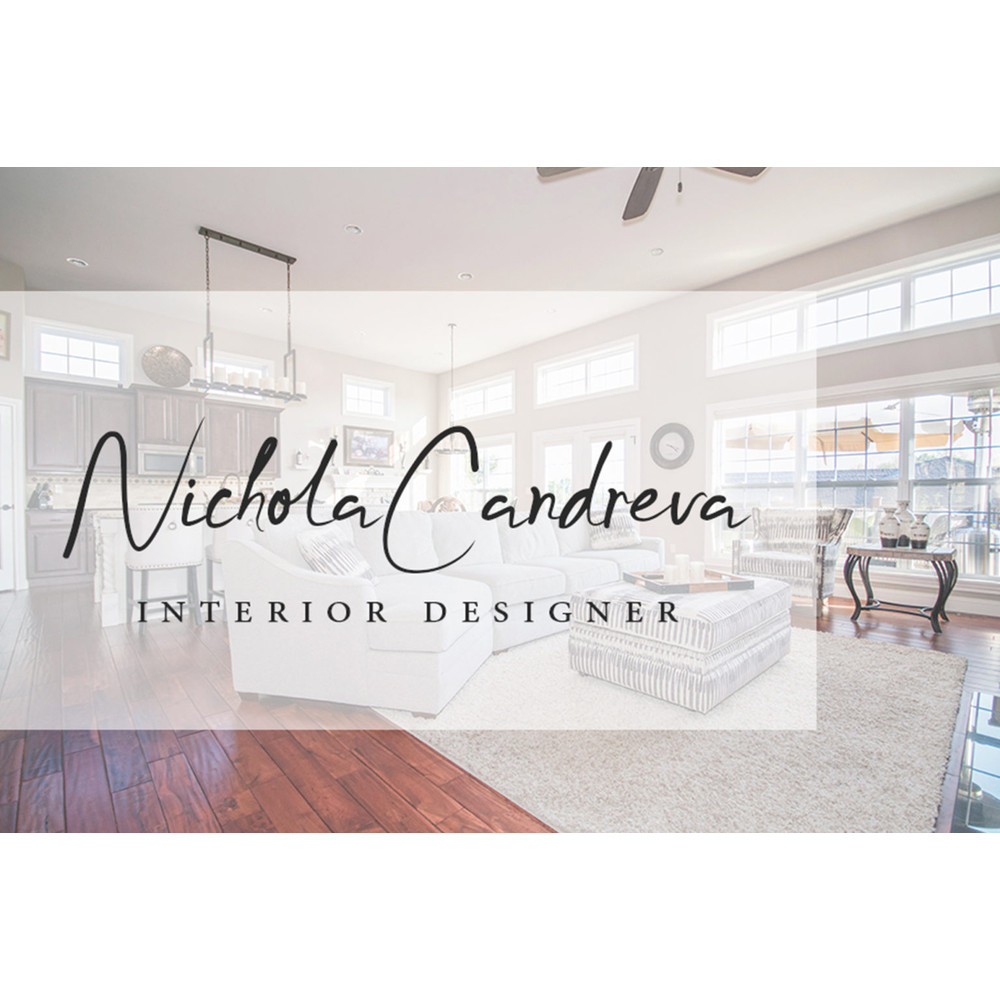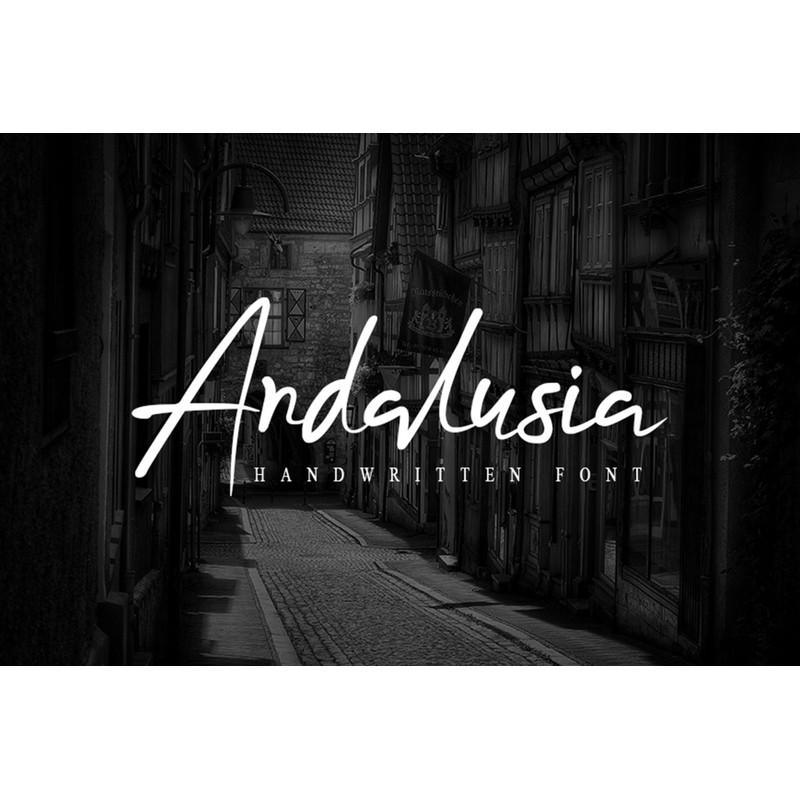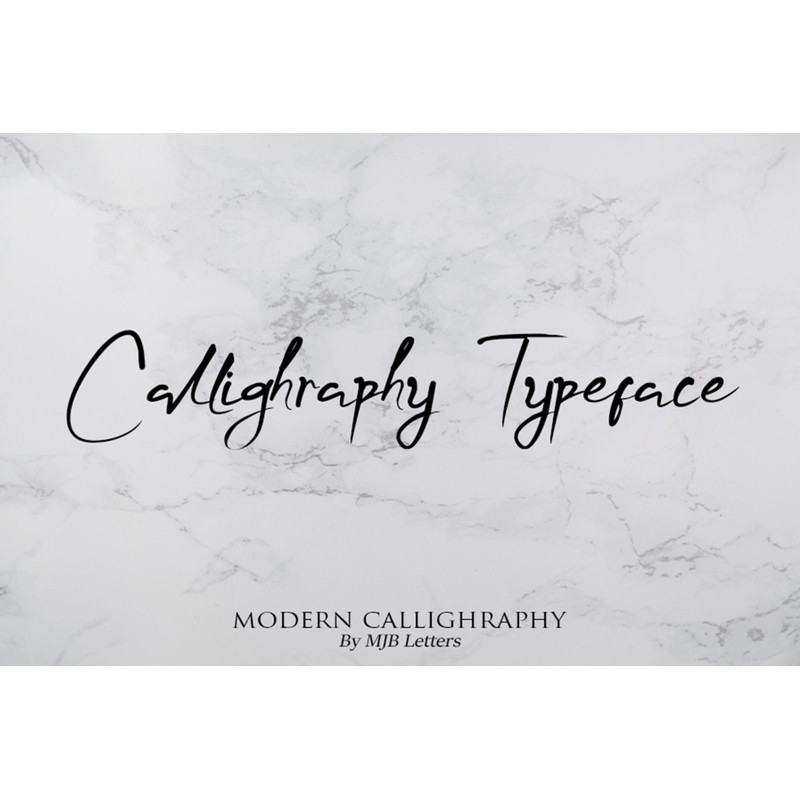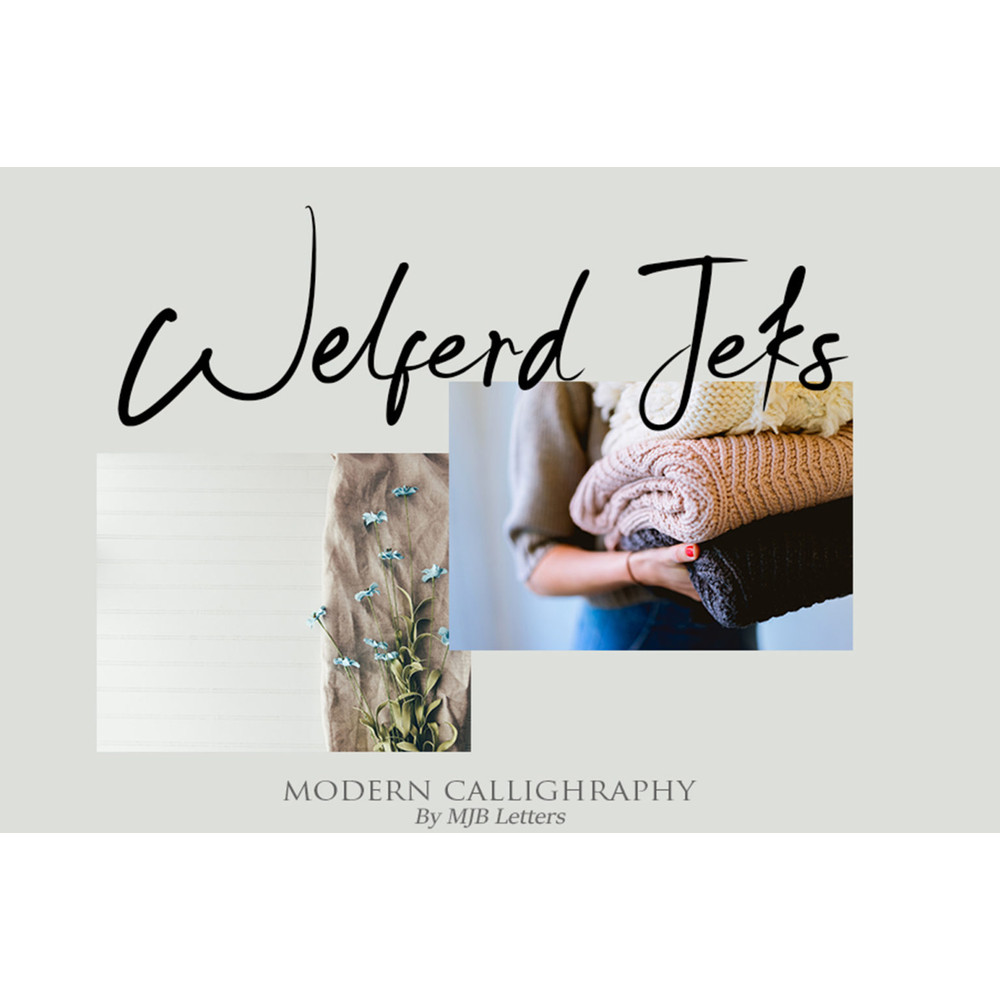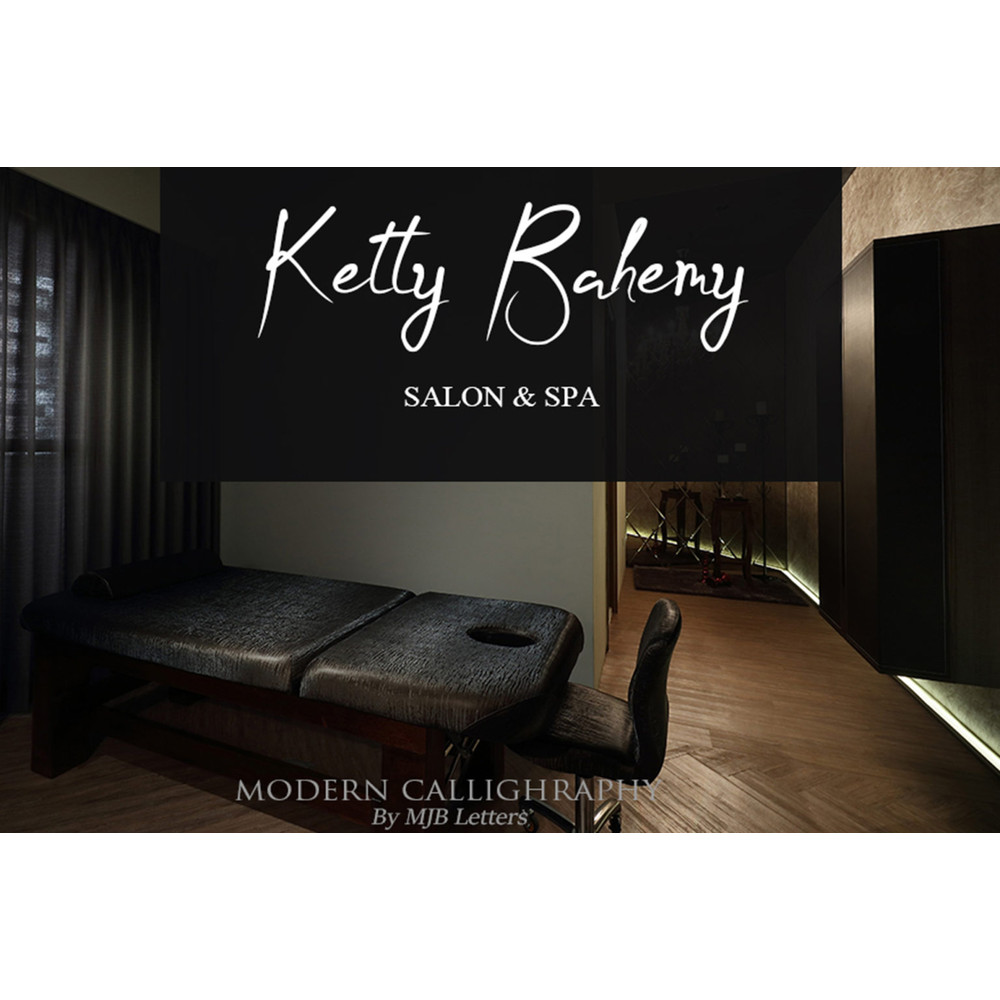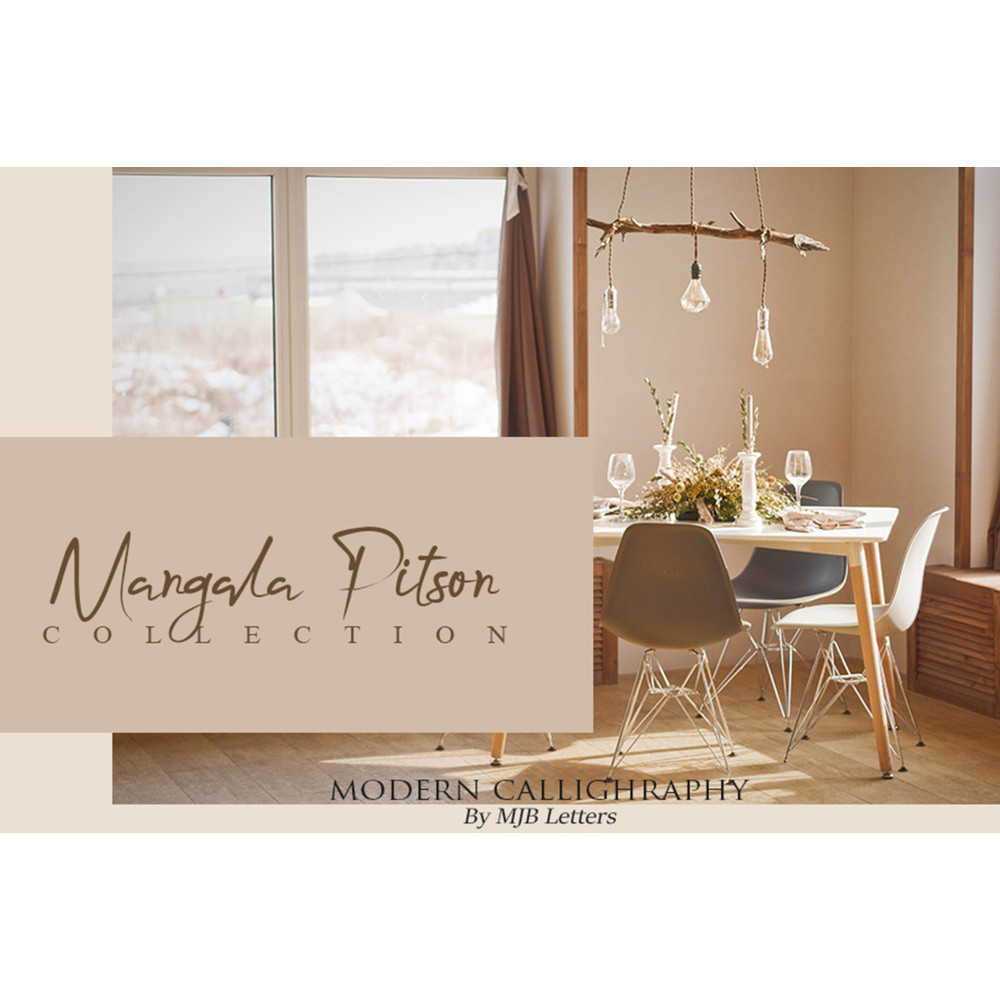
1. Andalusia A handwritten script font containing upper & lowercase characters, numerals and punctuation.
2. Andalusia Ligatures • Are also available for several lowercase characters (double-letters which flow more naturally). These are only accessible via software with opentype capability or a glyphs panel, e.g. Photoshop/Illustrator